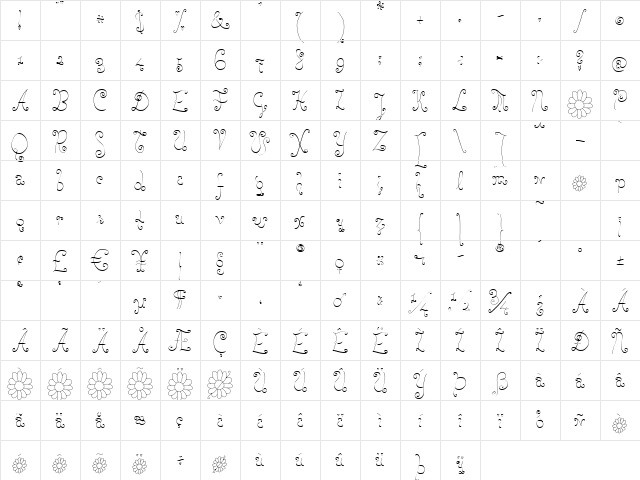
Complete RoseWater Regular glyph index. Displaying only characters natively supported by RoseWater Regular font.
RoseWater is a composed and adaptable typeface that performs quietly and consistently across a wide range of design contexts.